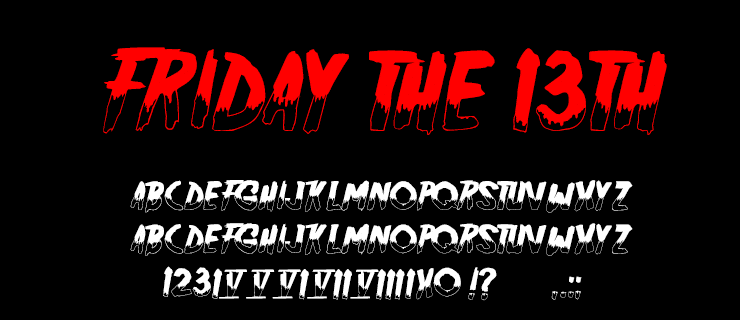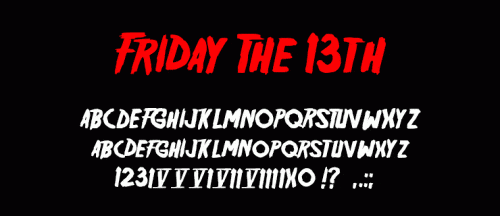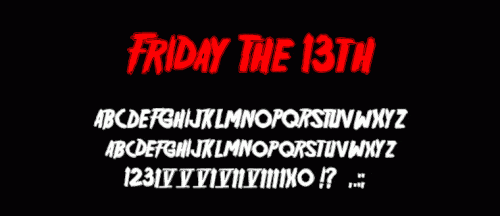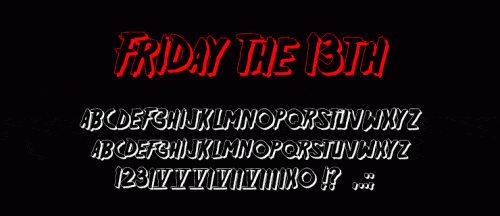
Friday the 13th is an American horror franchise that comprises twelve slasher films, a television series, novels, comic books, video games, and tie‑in merchandise. The franchise mainly focuses on the fictional character Jason Voorhees, who was thought to have drowned as a boy at Camp Crystal Lake due to the negligence of the camp staff. Decades later, the lake is rumored to be “cursed” and is the setting for a series of mass murders. Jason is featured in all of the films, as either the killer or the motivation for the killings. The original film, created to cash in on the success of Halloween (1978), was written by Victor Miller and was produced and directed by Sean S. Cunningham. The films have grossed over $468 million at the box-office worldwide. It was the highest-grossing horror franchise in the world until Halloween (2018) was released, putting the Halloween franchise in the top spot.
Friday the 13th Font is the font used for logo of Friday the 13th. This font is designed by Norfok. You can use this font for personal purpose.